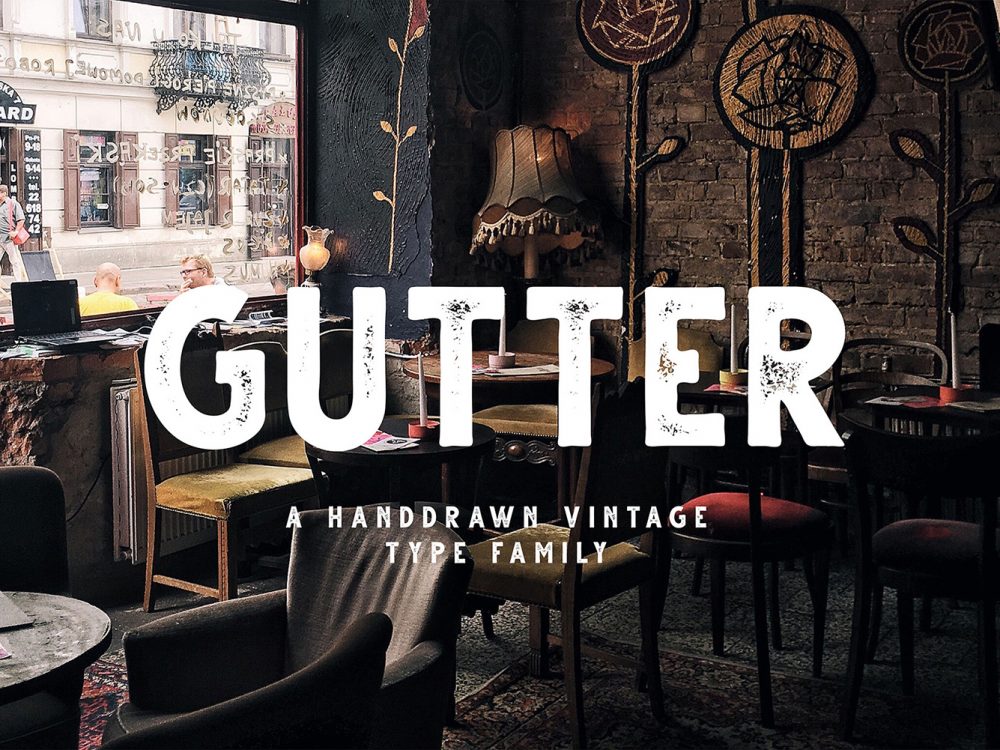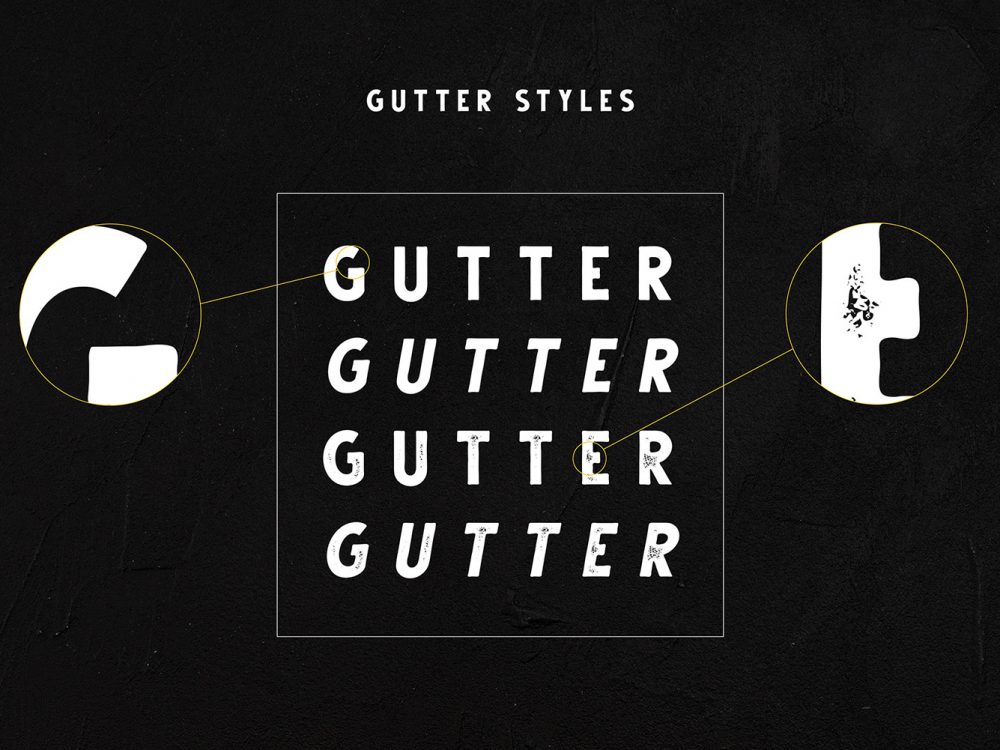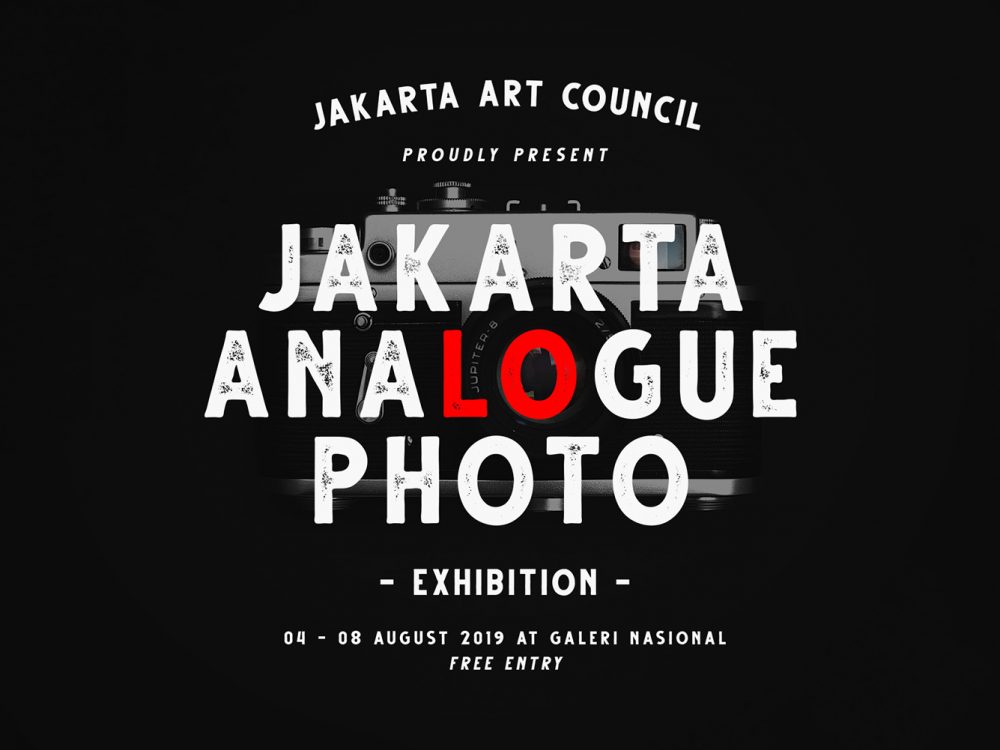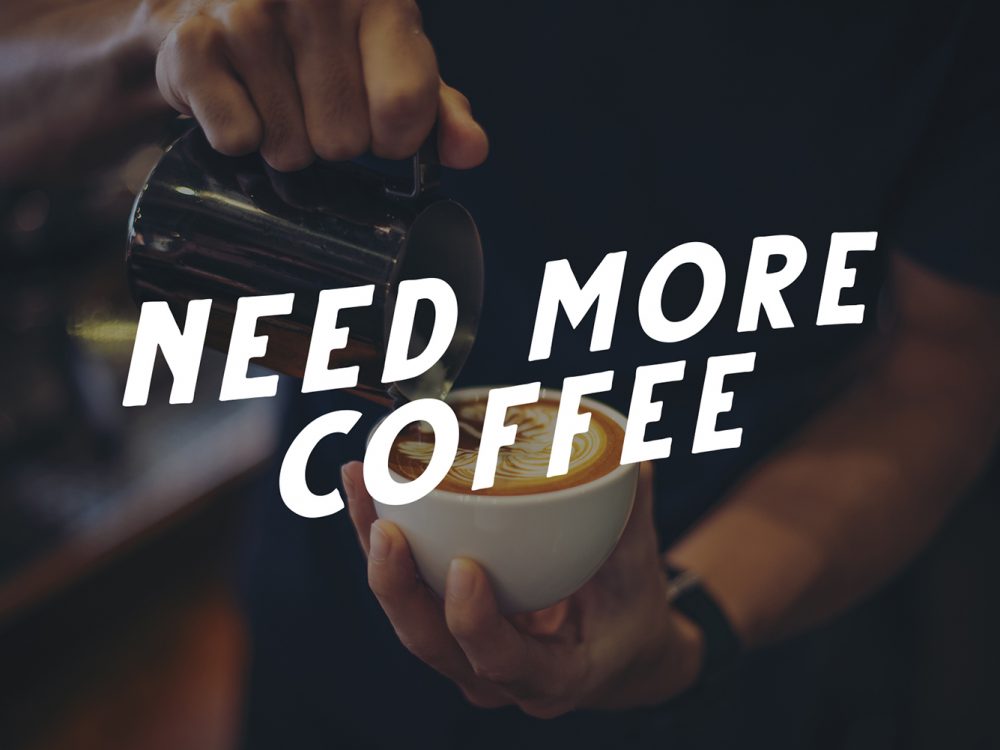
Gutter Handdrawn Vintage Font
Gutter Handdrawn Vintage Font is an interesting rough vintage handwritten typeface that will work very well for a variety of retro projects. These can be invitations, posters, postcards, flyers, prints, and more. If you wish to access more features and use them for commercial work please buy the full version.